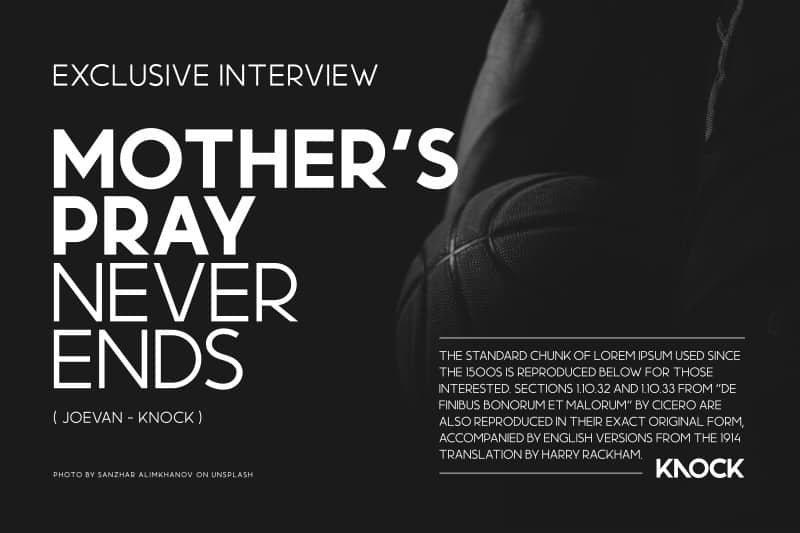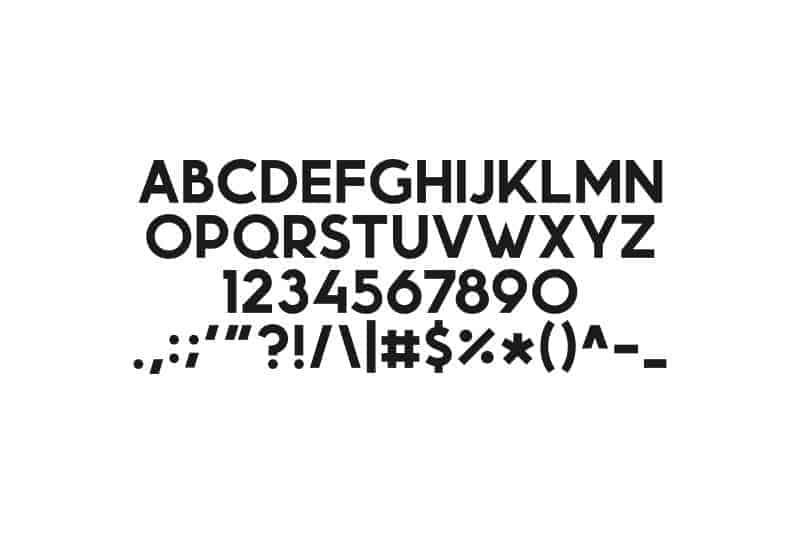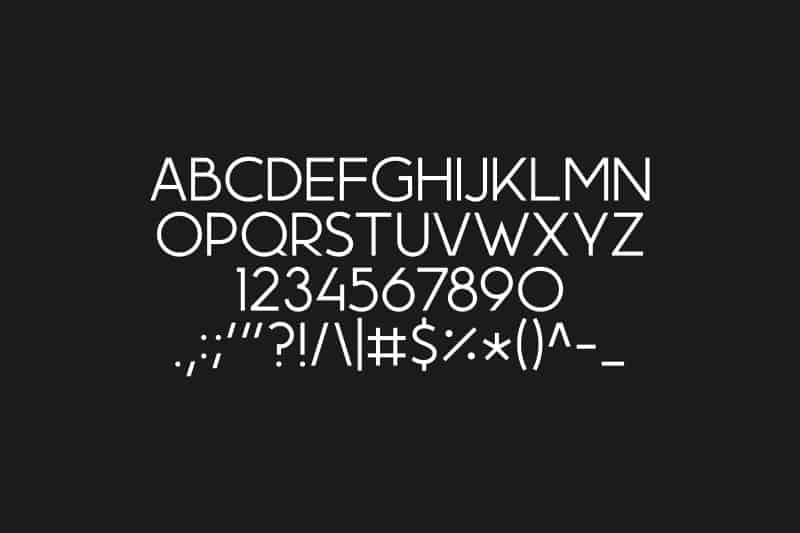
Momcake
Modern geometric sans serif typeface. Suitable for any projects such as logo, printing, web, etc. This is a sans serif font that we recommend using in the following types of work; magazines (titles and layouts), logos and branding, invitations, quotes, blog headers, posters, advertising and body copy.
- 2 fonts ( thin & bold )
- 83 glyphs